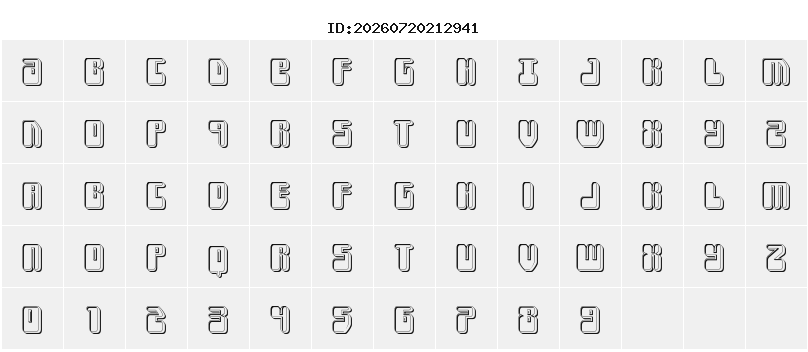
Force Majeure Engraved Preview
• Font Name: Force Majeure Engraved
• Full Font Name: Force Majeure Engraved
About Force Majeure Engraved.ttf
Force Majeure Engraved.ttf is a modern, elegant sans-serif font designed for ultimate readability and visual harmony. Perfect for branding, headlines, web design, and print materials.